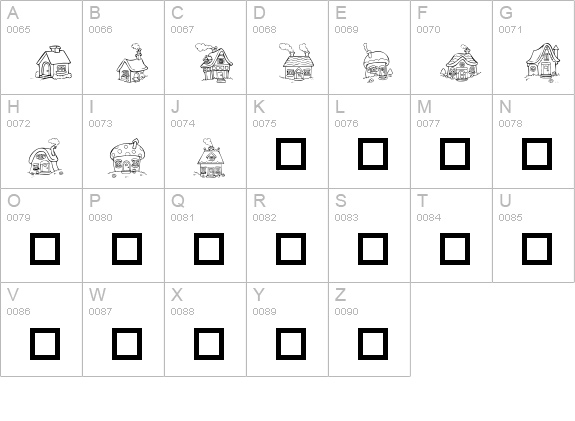
Destiny's Little Houses Font Details
Destiny's Little Houses font captures the charm and whimsy of quaint little cottages nestled in the countryside. With its hand-drawn style and intricate details, this font exudes a sense of coziness and nostalgia. Each letter is adorned with tiny windows, doors, and even little chimneys, adding a delightful touch to your designs. Destiny's Little Houses font is perfect for adding a touch of whimsical flair to your projects, whether you're creating invitations, greeting cards, or branding materials. Its unique design sets it apart and adds a playful element that is sure to captivate your audience. Best of all, Destiny's Little Houses font is available for free download at FontsMarket.com. So go ahead and bring a little bit of charm and magic into your designs with this delightful font.